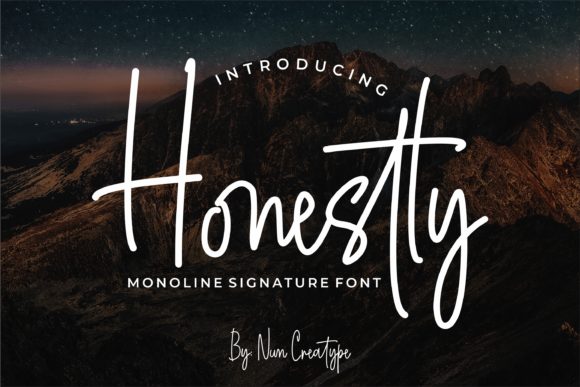
Welcome to the world of visual delight with Honestly Font, a captivating and mesmerizing font crafted by Nun Creatype. Embark on a journey of expression where your designs take center stage with a touch of elegance and sophistication.
Honestly Font embodies the essence of handwritten beauty, drawing inspiration from the fluidity and charm of real calligraphy. Its effortless flow and delicate curves add a dash of artistic flair to your projects, making them stand out from the crowd.
Embrace the power of this versatile font as you witness your words transform into works of art. Whether you're designing logos, branding projects, wedding invitations, social media posts, or product packaging, Honestly Font seamlessly adapts to your creative vision.
Immerse yourself in the world of filmmaking and let Honestly Font take your movie captions to new heights. Its cinematic appeal adds a touch of drama and intrigue to your videos, capturing the attention of your audience.
Unleash your creativity and watch as Honestly Font enhances your designs with a touch of personality and uniqueness. Explore its boundless possibilities and let your imagination run wild, knowing that this font will elevate your work to new levels of excellence.